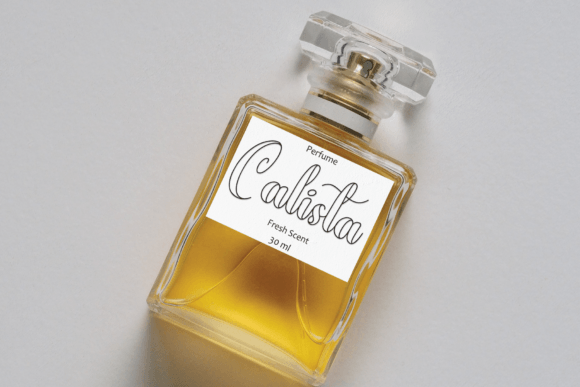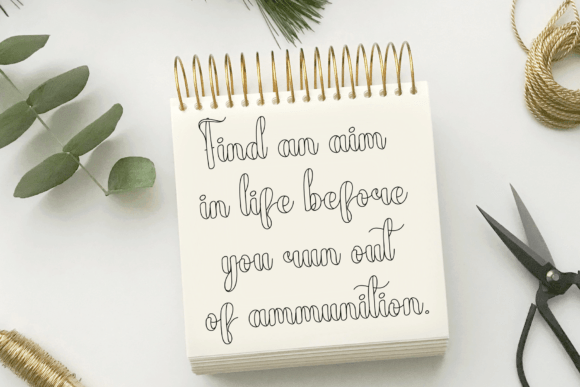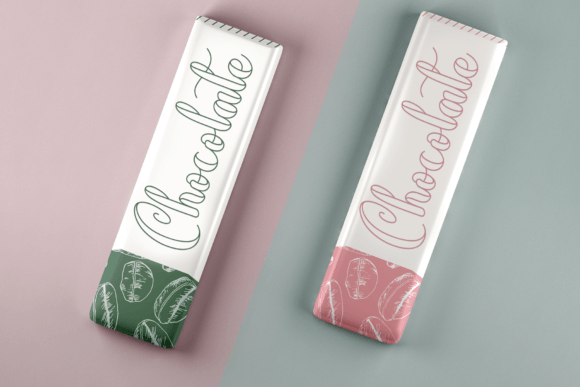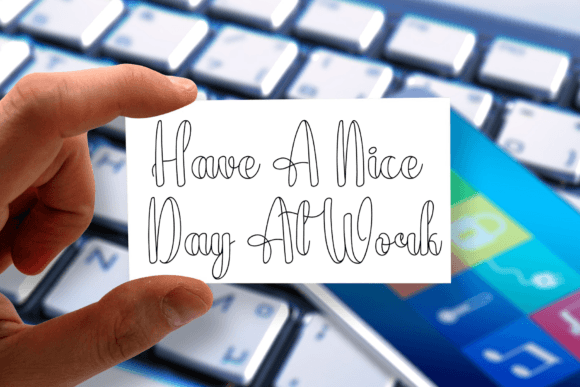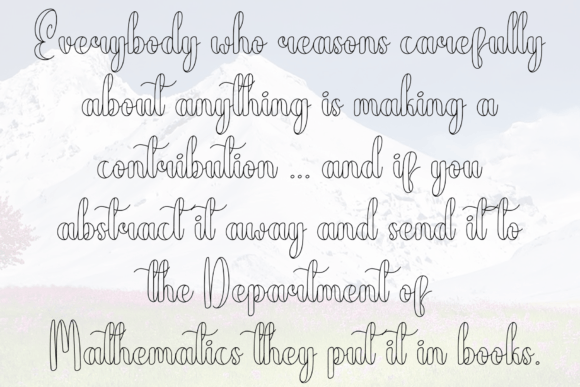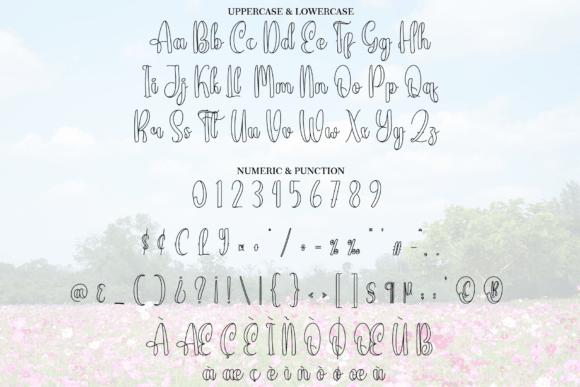
The Sweet Charm of Garden Font: A Designer’s Delight
I’ll never forget the time I was working on a wedding invitation project, and my client asked for a font that was “sweet, friendly, and whimsical.” I scoured the internet, tried out countless fonts, but nothing seemed to fit the bill. That was until I stumbled upon Garden Font. 💕
It was love at first sight! The flowing curves, the casual charm, and the elegant simplicity of Garden Font won me over. I knew right then and there that it was the perfect fit for my project. And today, I’m excited to share its beauty with you. 🌼
An Honest Review of Garden Font
- ✅ Fresh and casual feel that’s perfect for creative projects
- ✅ Sweet and friendly tone that’s ideal for wedding invitations, cards, and more
- ✅ Beautifully crafted with attention to detail and a touch of elegance
- ⚠️ Limited character set compared to some other fonts
- ⚠️ May not be the best fit for very formal or corporate designs
The Story Behind Garden Font
Garden Font was designed with the intention of creating a beautiful, handwritten font that captures the essence of a garden on a warm summer day. The designer, inspired by the beauty of nature, crafted a font that is both elegant and approachable.
Q: What is Garden Font best suited for?
A: Garden Font is ideal for creative projects that require a sweet and friendly tone, such as wedding invitations, cards, and other social media graphics.
Q: Is Garden Font available in different styles?
A: Currently, Garden Font is available in a single style. However, the designer may release additional styles or variations in the future.